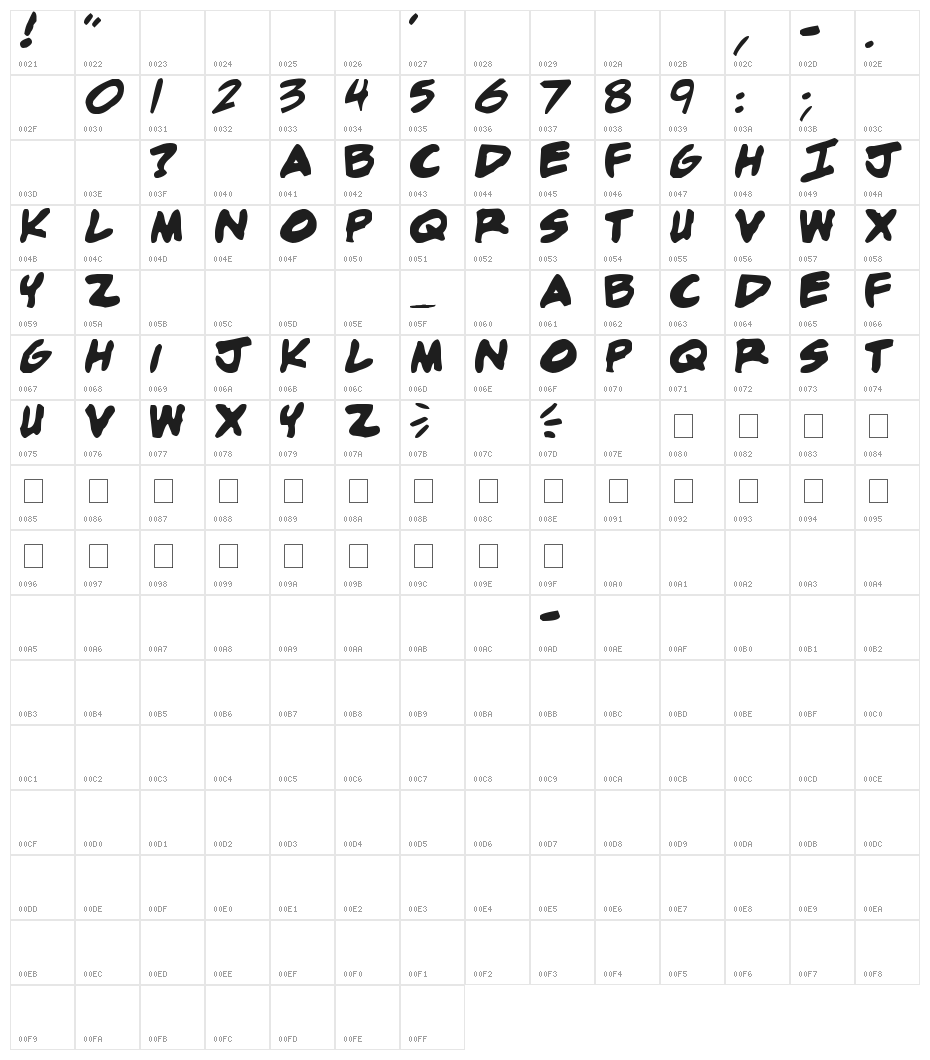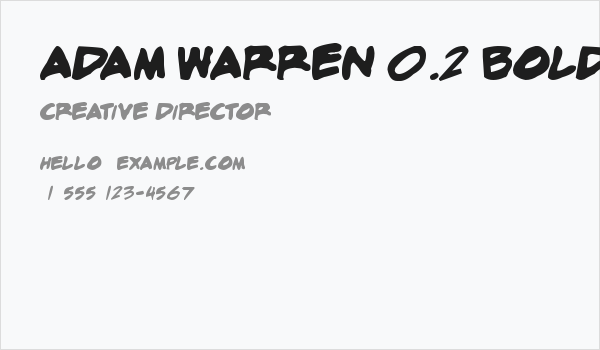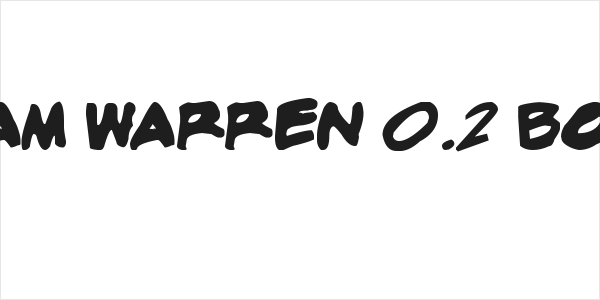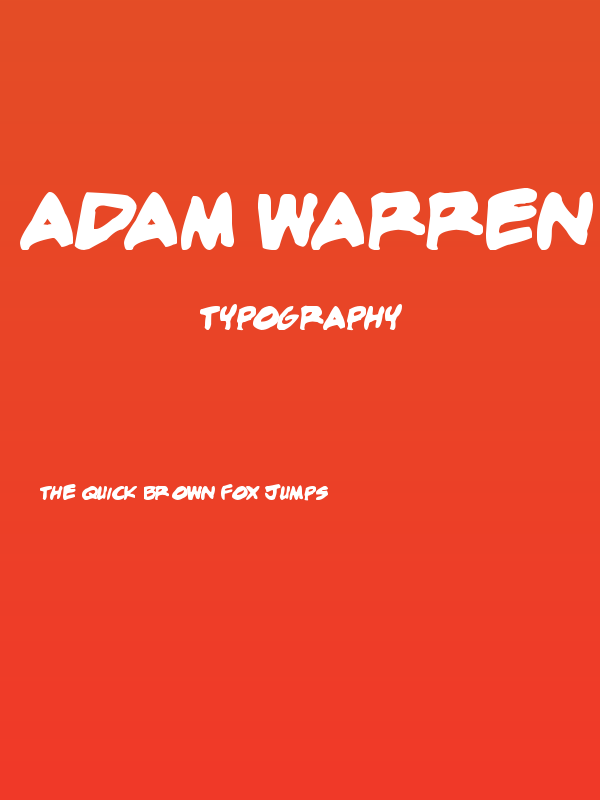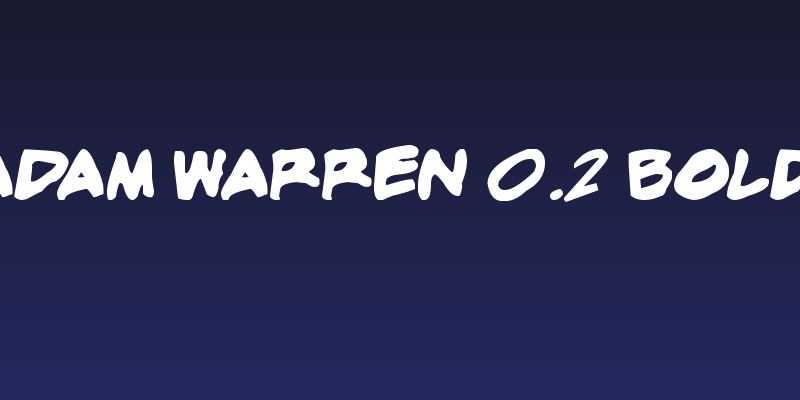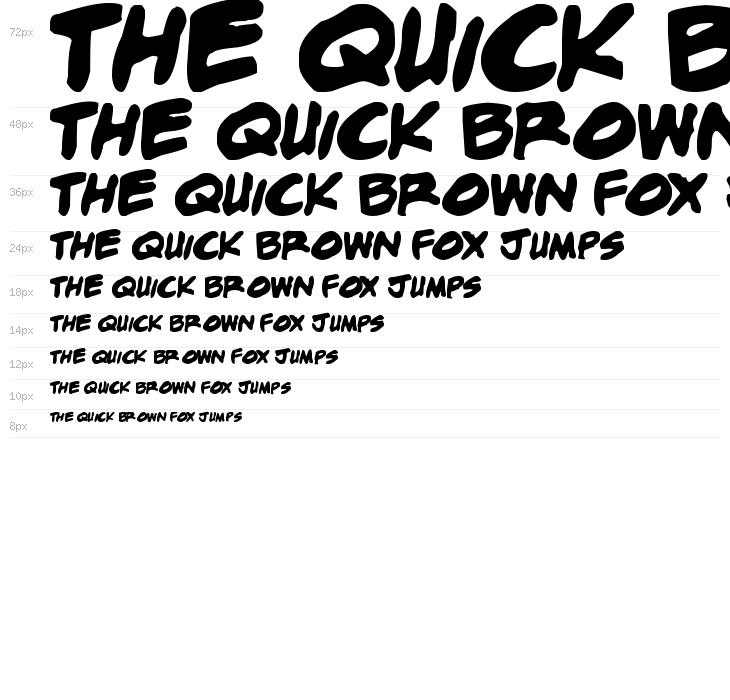
adam warren 0.2 Bold Font
adam warren 0.2 Bold Description
This bold and expressive font features a handwritten style with thick, dynamic strokes that convey a sense of energy and movement. The characters are slightly slanted, adding to the casual and informal feel. The uppercase and lowercase letters are consistent in style, with rounded edges and a playful appearance. Numbers and special characters maintain the same bold and lively characteristics, ensuring a cohesive look across all text elements. The font's design is suitable for projects that require a personal touch or a creative flair.
| Proposed Projects | Ideal for greeting cards, posters, branding materials, and social media graphics where a personal or creative touch is desired. |